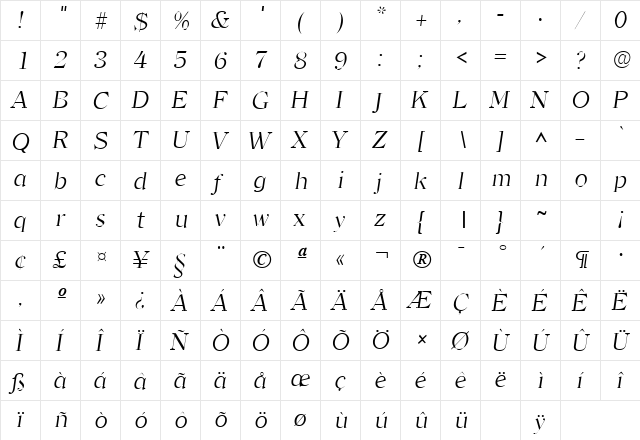
Clarity Serif Light SF Italic Font Preview
Design Context for Clarity Serif Light SF Typeface
Clarity Serif Light SF carries the refined structure of traditional serif typography, with bracketed terminals and considered proportions that communicate credibility and craft. The dynamic lean of this cut emphasises speed and emphasis in any layout. The delicate stroke weight brings airiness and refinement to layouts.
Pro Tip: Use Clarity Serif Light SF with generous line-spacing for the most refined reading experience — its light weight benefits from room between lines.